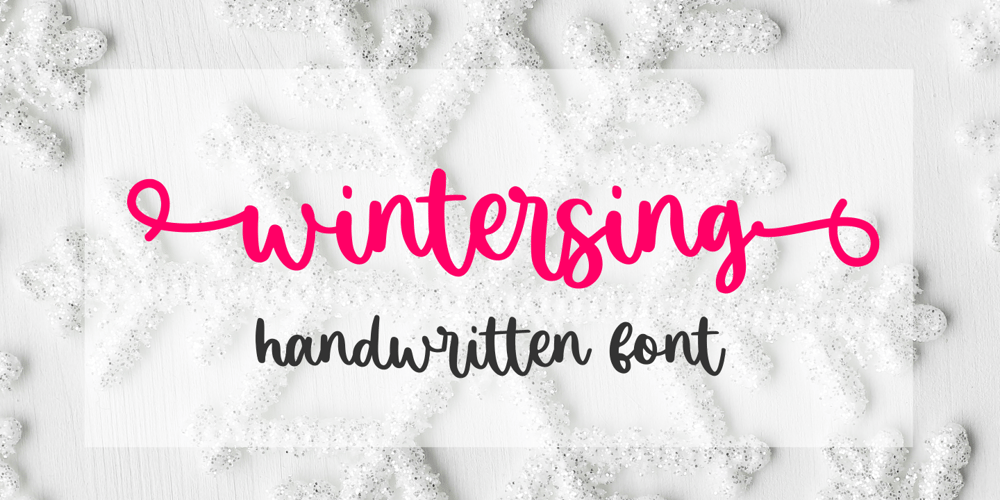
Wintersing Font Family was designed by Muhamad Yusron Billah and published by Sronstudio. Wintersing contains 1 styles and family package options. Wintersing is a natural calligraphy font perfect for crafting, branding, invitation, stationery, wedding designs, social media posts, advertisements, product packaging, product designs, label, photography, watermark, special events, or anything.Wintersing comes with full set of uppercase and lowercase letters, swash alternates, ligatures, multilingual symbols, numerals and punctuation.If you have any questions don’t hesitate to drop me a message ๐